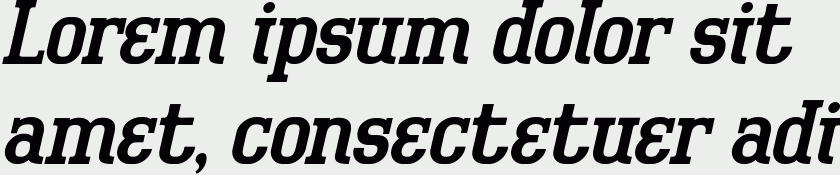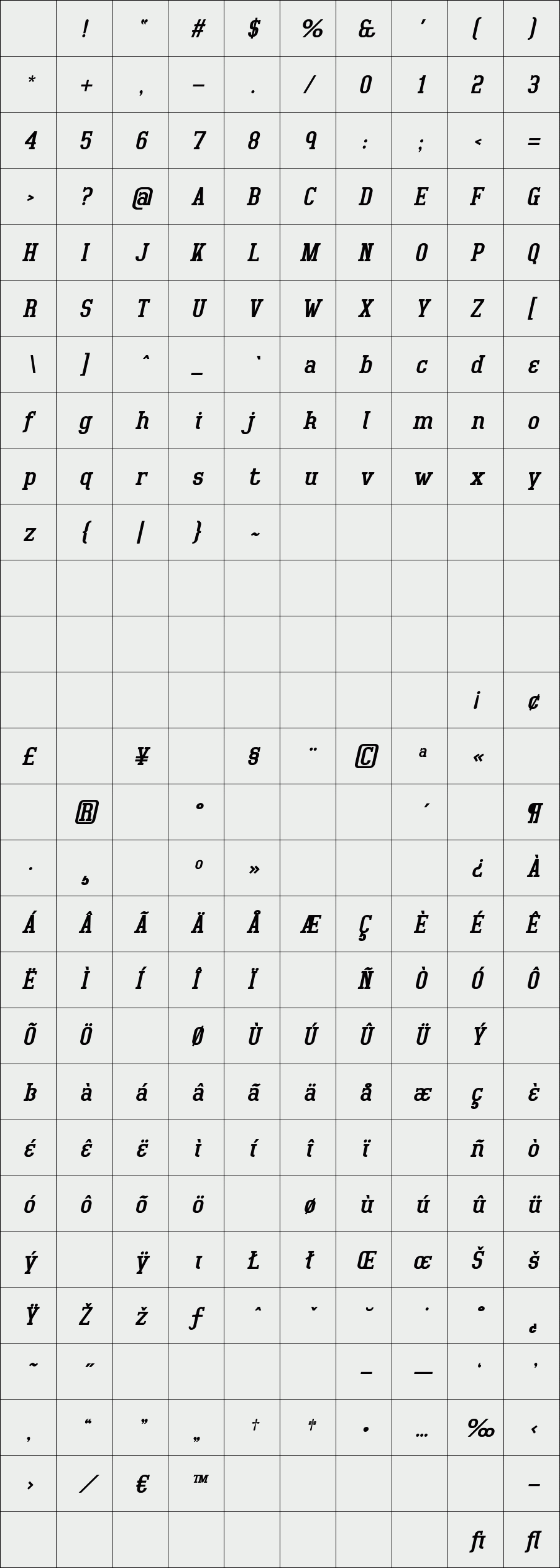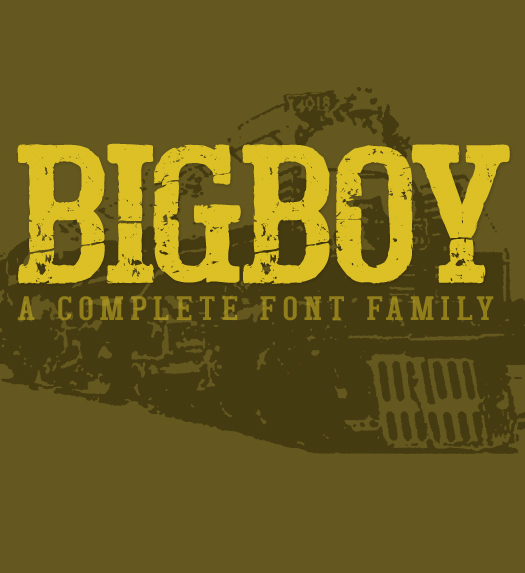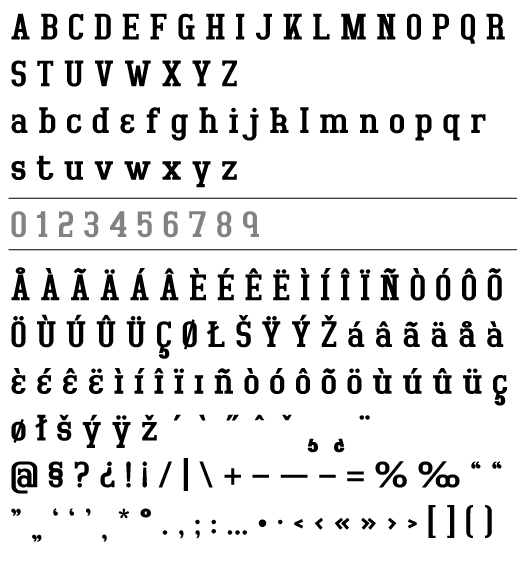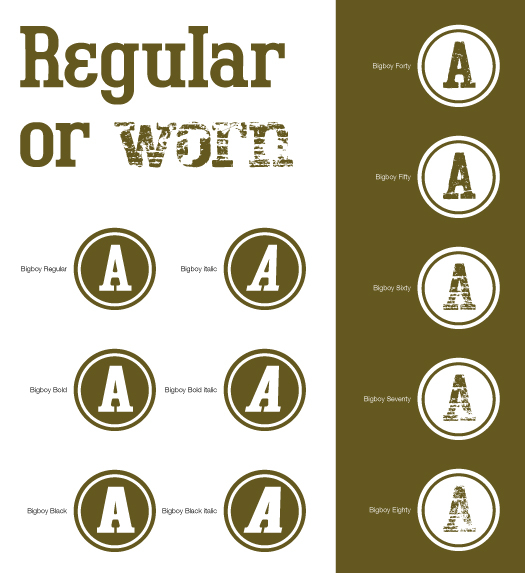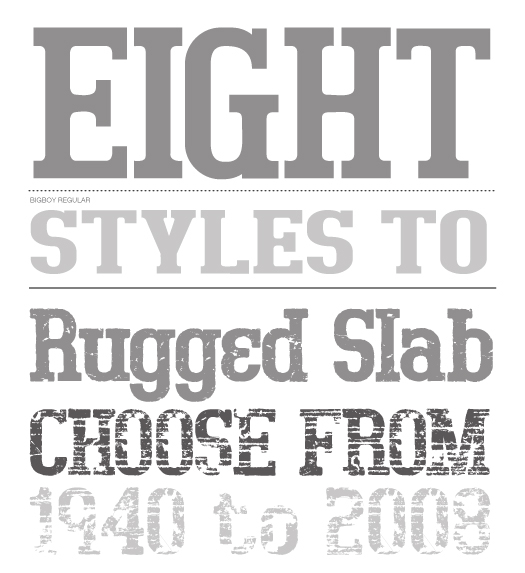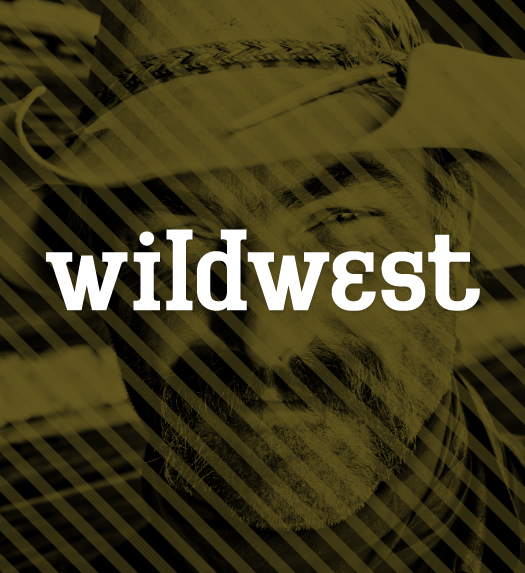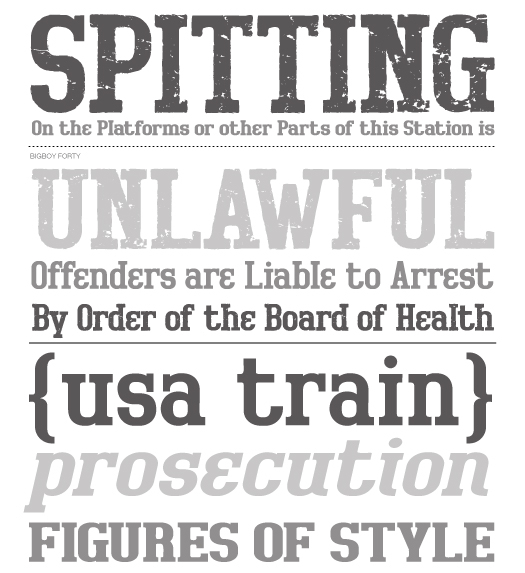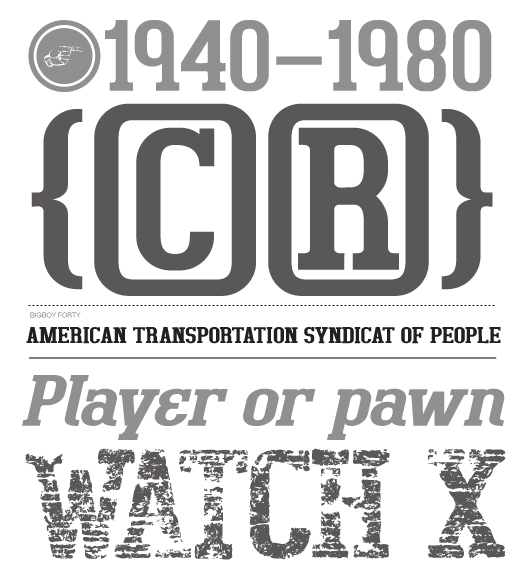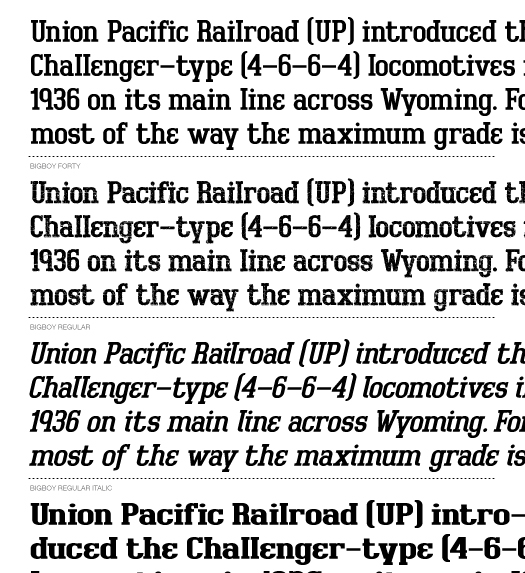
Bigboy
/ Bigboy regular italic
Bigboy is a slab serif design based on the old american signs of the midwest. This design is a condensed, heavy font that is well suited for use in large point sizes but remains legible for smaller text settings.